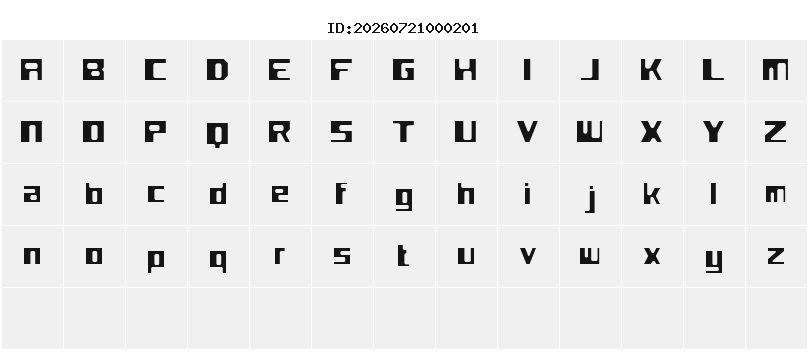
• Font Name: Flotsam Performance
About Flotsam Performance.ttf
Flotsam Performance.ttf is a modern, elegant sans-serif font designed for ultimate readability and visual harmony. Perfect for branding, headlines, web design, and print materials.